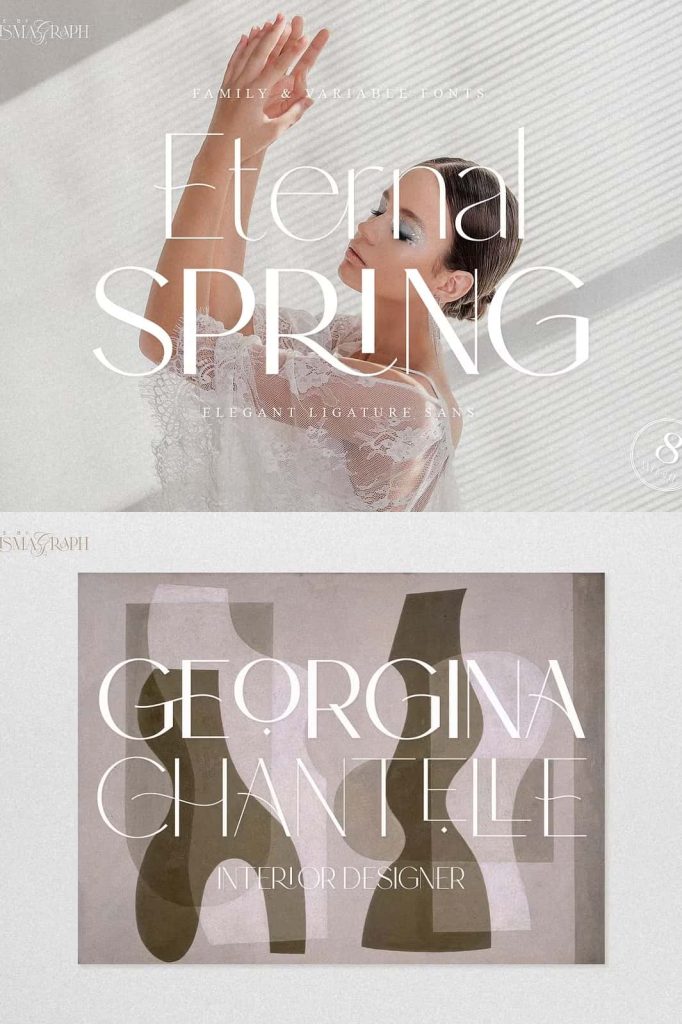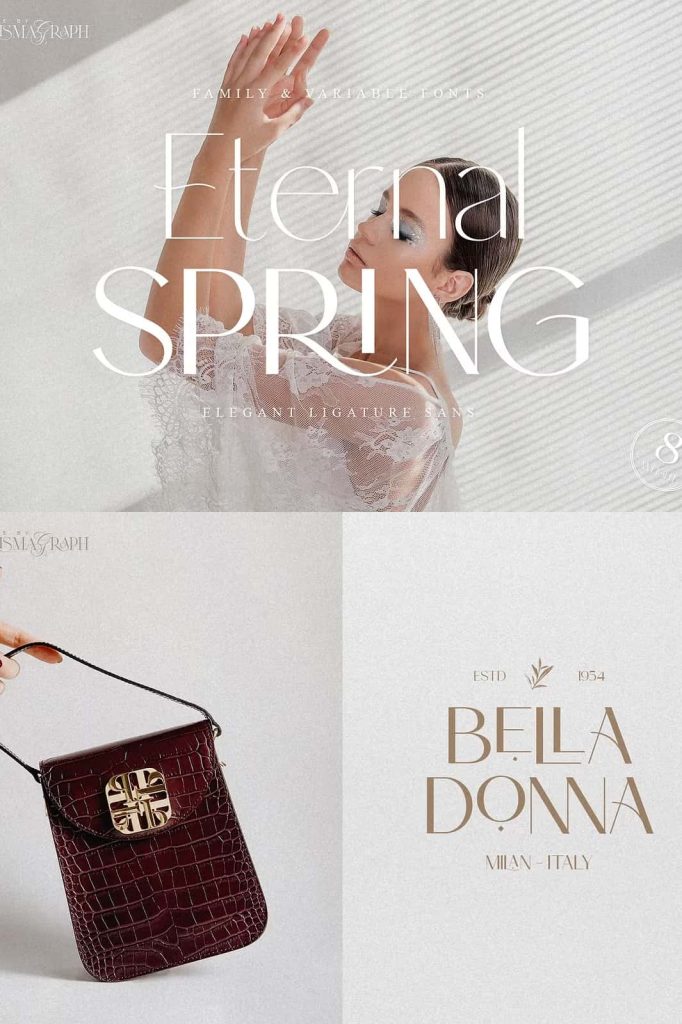
Eternal Spring Sans Serif Font Family
The Eternal Spring sans serif font is a modern and elegant typeface designed to bring versatility, clarity, and refined style to contemporary design projects. This sophisticated font family combines clean sans serif structure with expressive typographic features, allowing designers to create professional layouts that feel stylish, balanced, and visually engaging.
Eternal Spring stands out as a multipurpose typeface that adapts effortlessly to many design environments. With a wide range of weights, advanced OpenType features, and an extensive set of ligatures and alternates, the font offers designers a powerful toolkit for creative typography. Whether used for branding, editorial layouts, digital interfaces, or print materials, Eternal Spring provides the flexibility needed to craft distinctive and polished designs.
The design philosophy behind Eternal Spring focuses on achieving harmony between elegance and functionality. Its letterforms remain clean and readable while introducing subtle contrast that adds personality and visual interest. This balance allows the typeface to perform equally well in display typography and body text settings.
A Modern Sans Serif with Elegant Character
The Eternal Spring sans serif font combines modern typographic principles with refined aesthetic details. Its carefully designed letterforms feature smooth curves, balanced proportions, and high contrast strokes that create a visually striking appearance. This contrast adds sophistication to the typeface while maintaining the simplicity that defines contemporary sans serif design.
Many modern fonts focus solely on minimalism, but Eternal Spring introduces a subtle level of elegance that elevates its overall style. The combination of clean structure and expressive details allows the typeface to communicate both professionalism and creativity.
Because of this thoughtful design approach, Eternal Spring feels equally suitable for projects that require a strong visual identity and those that demand readability and clarity. Designers can use the font to produce typography that feels both modern and timeless.
Eight Weights and Variable Font Flexibility
One of the key strengths of the Eternal Spring sans serif font lies in its extensive range of weights. The family includes eight different weights, ranging from Thin to ExtraBold. This wide spectrum allows designers to build strong typographic hierarchies within their layouts.
Lighter weights offer elegance and subtlety, making them perfect for refined editorial layouts, quotes, and minimalist design compositions. Heavier weights provide strong visual impact, which makes them ideal for headlines, logos, and branding elements.
In addition to these static weights, Eternal Spring also includes variable font support. This feature allows designers to adjust weight and style dynamically, offering greater flexibility when designing responsive layouts or adapting typography to different screen sizes.
76 Unique Ligatures and 27 Alternates
The Eternal Spring sans serif font includes a rich collection of typographic features designed to enhance creativity. The font contains 76 unique ligatures that help create smoother and more visually appealing letter combinations. These ligatures improve the flow of words while adding stylistic sophistication to the text.
In addition to ligatures, the font also includes 27 alternate characters. These alternates allow designers to customize the appearance of specific letters, giving them greater control over the final typographic composition. By experimenting with these variations, designers can produce unique lettering styles that stand out from standard typography.
Together, these features transform Eternal Spring from a simple font into a flexible creative tool. Designers can easily adapt the typeface to match different visual styles and branding requirements.
Perfect Balance of Feminine and Masculine Design
Another distinctive quality of the Eternal Spring sans serif font is its ability to balance feminine elegance with masculine strength. The high contrast glyphs introduce graceful curves and refined details that convey elegance, while the structured sans serif framework maintains a confident and modern presence.
This balance allows the font to function across a wide variety of design contexts. Designers can use Eternal Spring in fashion branding, lifestyle products, corporate communication, and editorial design without the typeface feeling overly specialized.
The result is a typeface that communicates versatility and style. Its balanced personality ensures that it remains appropriate for both expressive creative projects and professional business applications.
Ideal for Branding, Editorial Design, and Display Typography
The Eternal Spring sans serif font excels in display typography, where its elegant contrast and distinctive character can shine. Designers frequently use it for headings, logos, and branding materials because it commands attention while maintaining sophistication.
Editorial design also benefits from the font’s readability and structure. Magazine layouts, lookbooks, and promotional publications can use Eternal Spring to create visually appealing text compositions that guide readers through the content smoothly.
The font also performs beautifully in packaging design, invitations, and marketing materials. Its refined appearance enhances product presentation while maintaining clarity across different print formats.
Easy to Use with Powerful OpenType Features
Eternal Spring integrates advanced OpenType functionality, making it easy for designers to access its ligatures and alternate characters directly within compatible design software. These features allow users to activate stylistic variations quickly and experiment with different typographic combinations.
This accessibility ensures that both experienced designers and beginners can take full advantage of the font’s creative capabilities. By enabling OpenType features, designers can enhance their typography with minimal effort while achieving professional results.
Because the font remains easy to use while offering advanced features, it becomes a practical choice for both small design projects and large professional design systems.
A Versatile Typeface for Modern Creative Projects
The Eternal Spring sans serif font delivers a complete typographic solution for designers who value elegance, flexibility, and modern design. With eight weights, variable font functionality, 76 ligatures, and 27 alternates, the typeface provides everything needed to build sophisticated and visually engaging layouts.
Designers working on branding, editorial design, packaging, invitations, and digital interfaces can rely on Eternal Spring to produce typography that feels contemporary and refined. Its balance of elegance and readability ensures that text remains attractive and functional across a wide range of applications.
By combining modern sans serif clarity with expressive typographic features, Eternal Spring empowers designers to create work that feels stylish, versatile, and creatively inspiring.